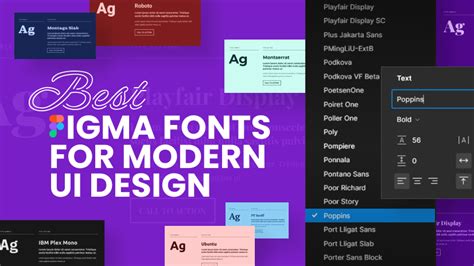
Unleashing Creativity: Your Guide To Figma Fonts
Unleashing Creativity: Your Guide to Figma Fonts
Hey there, design enthusiasts! Ever feel like your Figma designs are missing that extra something ? Maybe your fonts are feeling a little… blah? Well, you’re in the right place! We’re diving headfirst into the exciting world of Figma fonts , exploring how to find, install, and use them to truly make your designs pop. This guide is your ultimate companion, whether you’re a seasoned pro or just starting your design journey. Let’s get started and turn those bland layouts into stunning masterpieces! We’re going to cover everything from the basics of font selection to some cool tips and tricks for optimizing your workflow. Get ready to unleash your creativity and make your designs stand out from the crowd. So, buckle up, because we’re about to embark on a font-tastic adventure! Let’s transform your design projects with the perfect typography, because selecting the right font can make or break your designs. It’s the silent communicator, setting the tone and mood of your work. The goal is to learn how to expertly utilize fonts to create visually stunning designs that effectively communicate your message. We’ll explore the best practices for choosing the correct fonts and mastering them within Figma. This guide is going to be your go-to resource for all things related to typography in Figma. So, get ready to elevate your design skills and create visually stunning projects. Let’s make some awesome designs, guys!
Why Fonts Matter in Figma
Alright, let’s talk about why fonts are so darn important, especially when you’re working in Figma. Think of your design as a car. The content is the engine, the images are the shiny wheels, and the font is the steering wheel - it guides the whole experience. Fonts aren’t just about making text readable; they play a huge role in the overall aesthetic and feel of your design. They communicate the brand’s personality and values. They help to create a visual hierarchy, guiding the user’s eye and making your content easy to digest. Using the right font can convey professionalism, playfulness, or even a sense of luxury. And on the flip side, using the wrong font can completely ruin the vibe. Choosing a font is not something to be taken lightly! The font you choose can influence everything: readability, brand recognition, and user experience. Understanding how to use fonts effectively is essential for any designer. Typography establishes visual hierarchy, creates consistency across designs, and reinforces brand identity. This also makes the content more engaging and helps your target audience connect with your message. The right typography makes your content shine and boosts its impact. If you want to make a lasting impression on your audience, then typography is crucial. So, understanding how fonts shape the user’s experience is fundamental to great design. This knowledge allows you to use fonts effectively, turning text into a powerful tool.
The Impact of Font Choices on User Experience
Selecting the right fonts improves user experience. Fonts are more than mere text; they significantly impact how users perceive and interact with your designs. When a font is easy to read, it encourages users to engage with your content. Using an appropriate font can significantly increase engagement. Font choices can affect how users interpret a brand’s message. Choosing a font can boost readability and create a sense of trust with users. Typography establishes visual hierarchy, guiding users to crucial information. A great font makes content engaging and memorable. The right font choice helps your design be more successful. Fonts communicate a brand’s style and values, which can improve user experience. A well-chosen font encourages users to interact with the design and helps build trust. Effective font selection enhances the user experience, making your design more enjoyable. Typography is essential for a good user experience. Fonts significantly impact how users perceive and interact with designs. Choosing the right fonts will guarantee your success!
Finding Fonts for Figma
Alright, let’s get down to the fun part: finding those perfect fonts for your Figma projects! Luckily, there’s a whole universe of options out there, so you’re bound to find something that fits your needs. Figma itself integrates seamlessly with Google Fonts, which is a fantastic resource. Google Fonts offers a vast library of free, open-source fonts, and they’re super easy to integrate into your projects. Simply search for the font you want, and it’ll be available directly within Figma. Can’t beat that! Beyond Google Fonts, there are other great sources, such as Adobe Fonts (if you have an Adobe Creative Cloud subscription), which offers a huge selection of premium fonts. Then there are sites like Font Squirrel and DaFont , which are great for finding free fonts, but always make sure to check the licensing before you use them in commercial projects! Websites like MyFonts and Creative Market are amazing places to buy high-quality, professionally designed fonts. They offer a vast range of styles, from classic serifs to modern sans-serifs, and everything in between. Check the licensing details to ensure you can use them for the projects you are working on. Remember, selecting the right font is crucial for effective communication. So take the time to explore different options and see what works best for your projects!
Managing Your Font Library
Once you’ve started collecting fonts, things can quickly become overwhelming. Keeping your font library organized is key to an efficient workflow. Consider creating a system for categorizing your fonts. This could be by style (serif, sans-serif, script), by purpose (headings, body text), or even by the project they’re best suited for. Use descriptive file names to make it easy to remember what each font is. Some designers prefer to create folders for different font families. This helps to keep related font styles together. A great tip is to regularly review your font library, and get rid of fonts you no longer use. This helps to keep your library clean and uncluttered. It can be easy to hoard fonts, but try to be selective and keep only the ones you really need. Also, create a